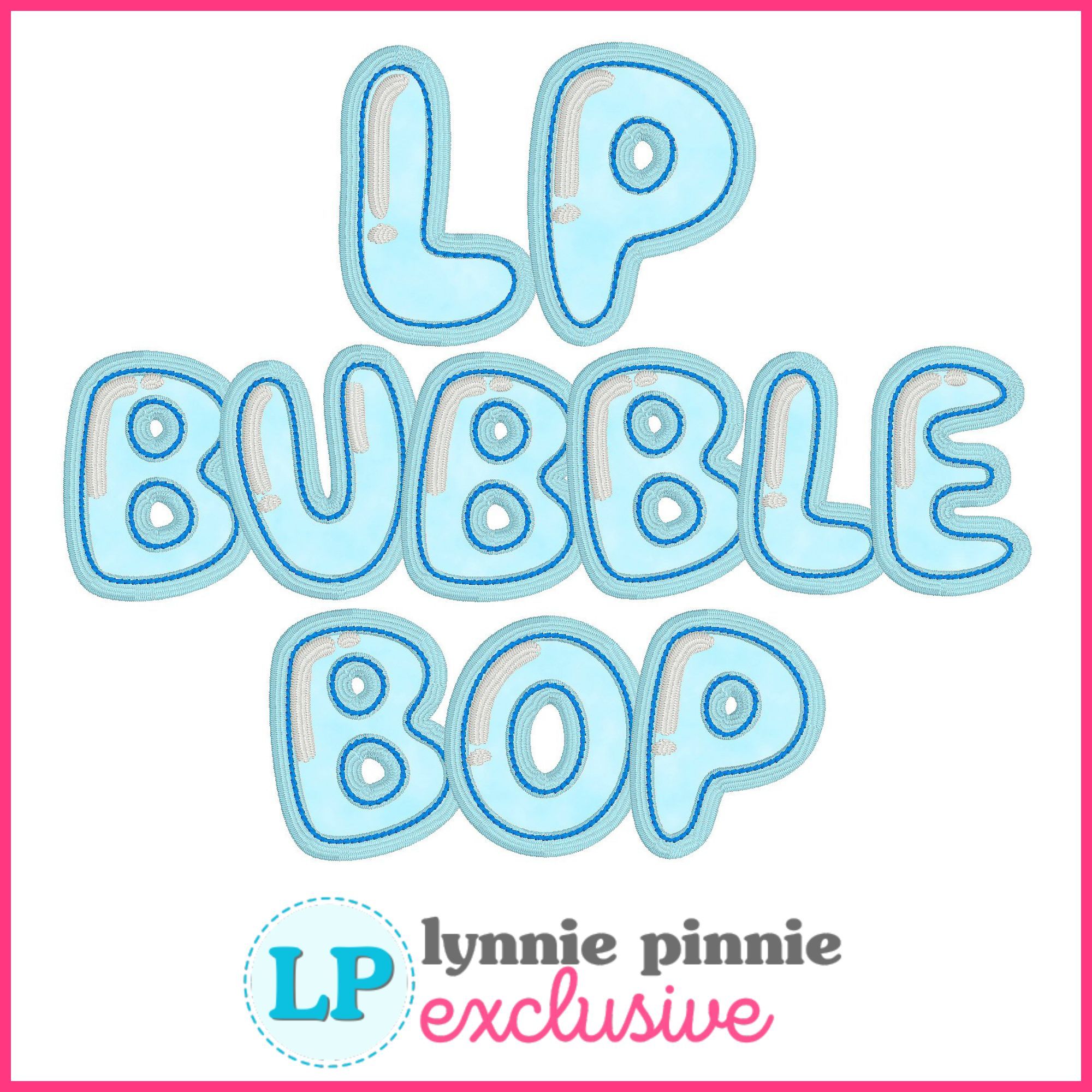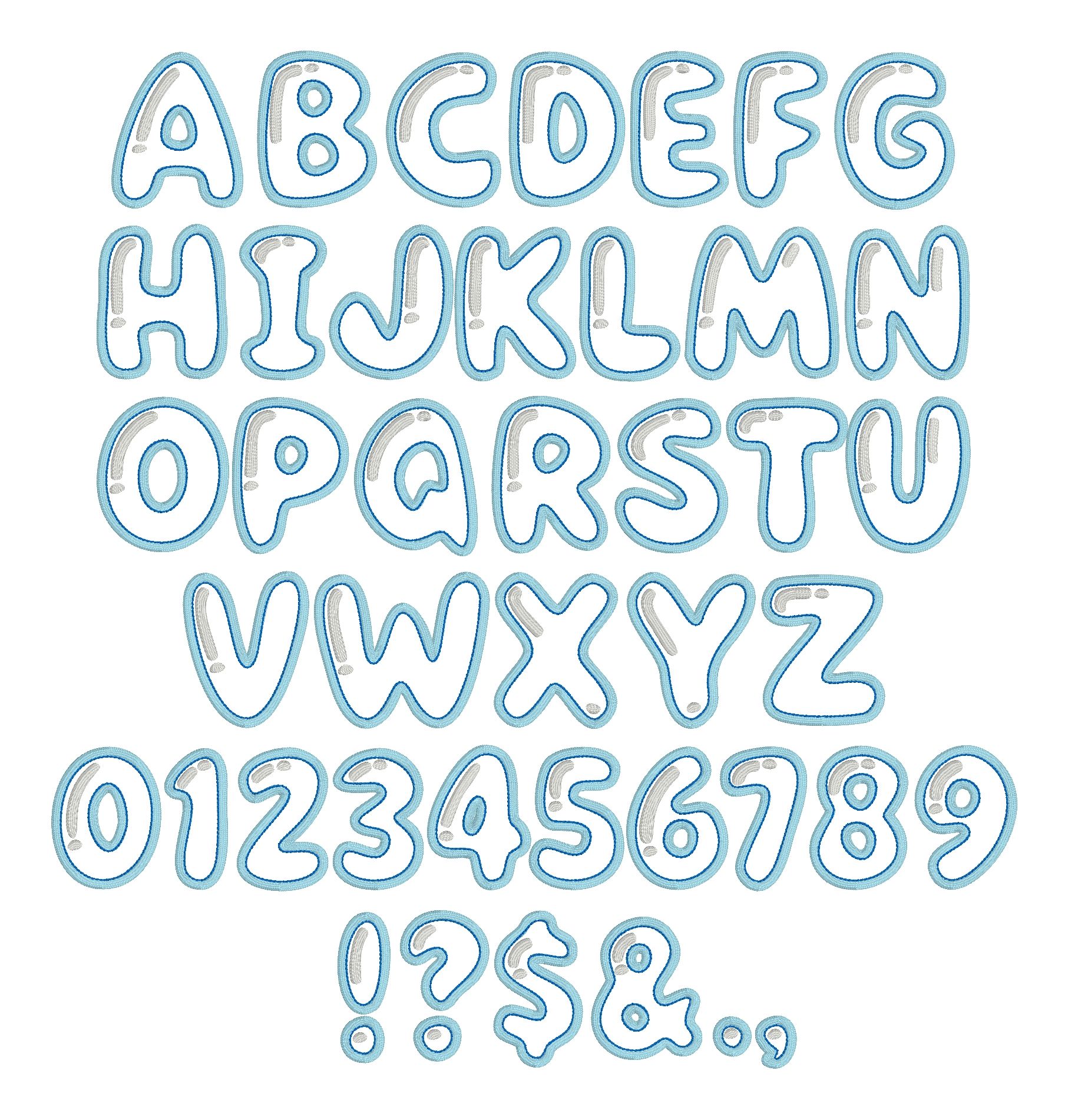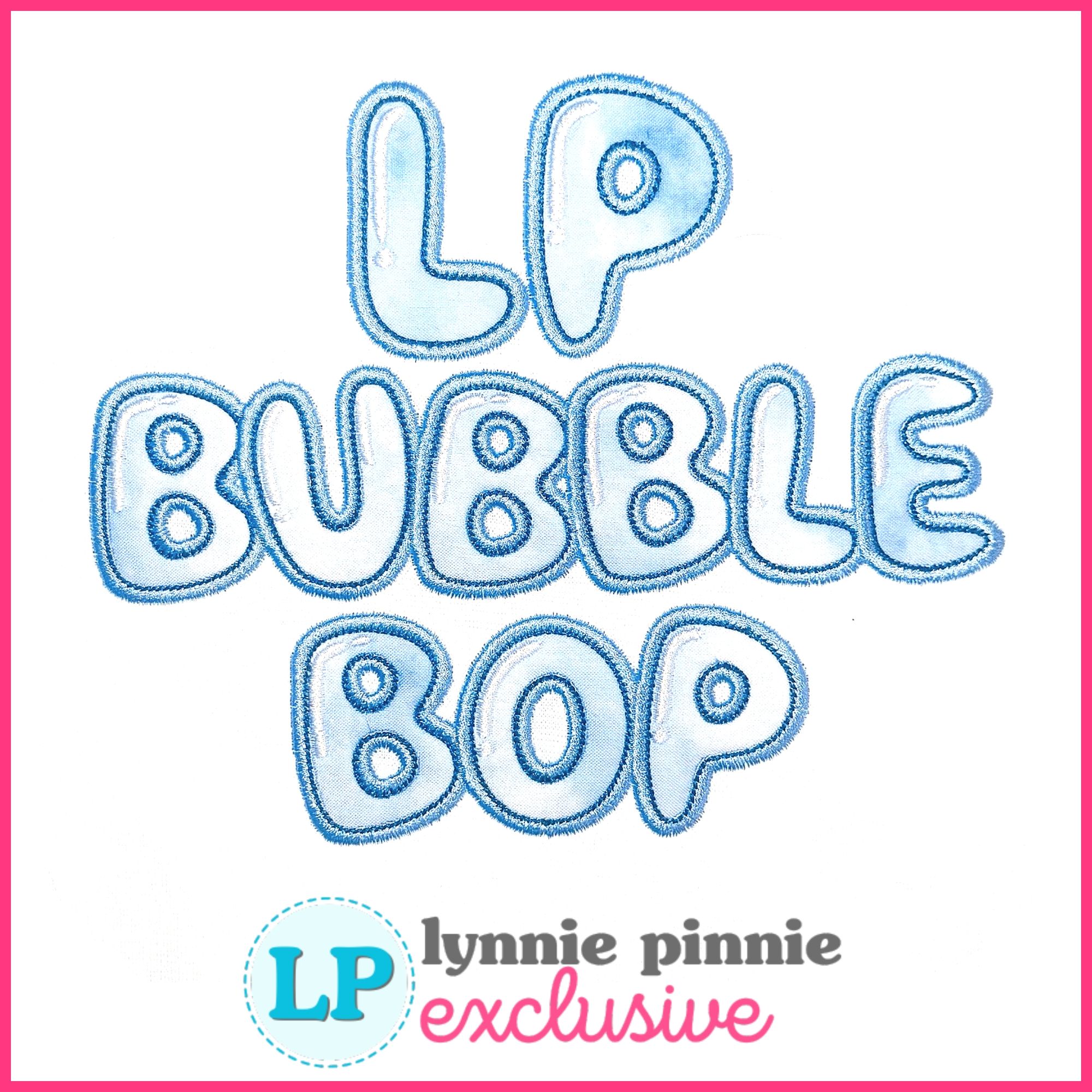
Bubble Bop Applique is a bold and playful uppercase applique embroidery font featuring a smooth satin stitch finish, contrast outline, and reflective-style details.
This fun, bubbly balloon-inspired font is perfect for kids’ projects, birthday shirts, and more.